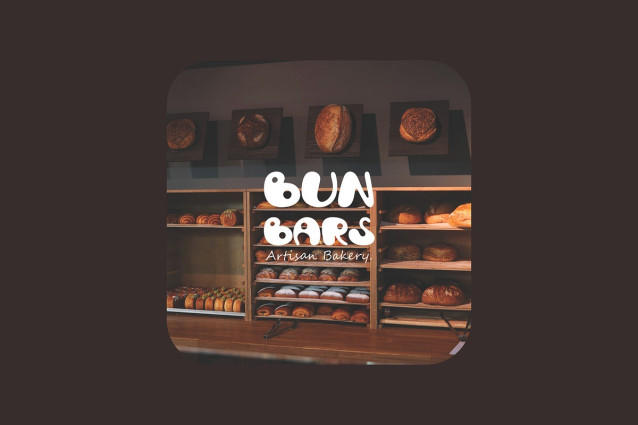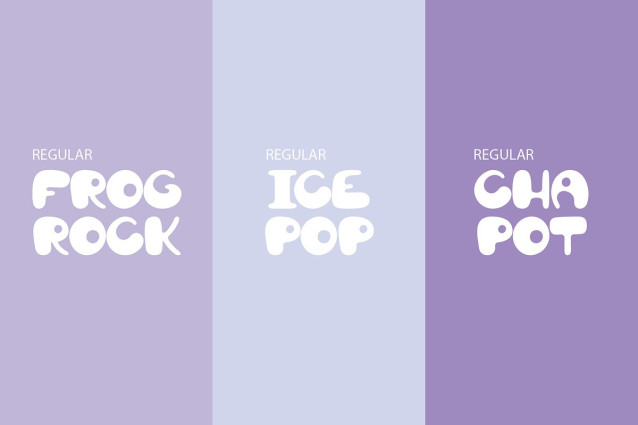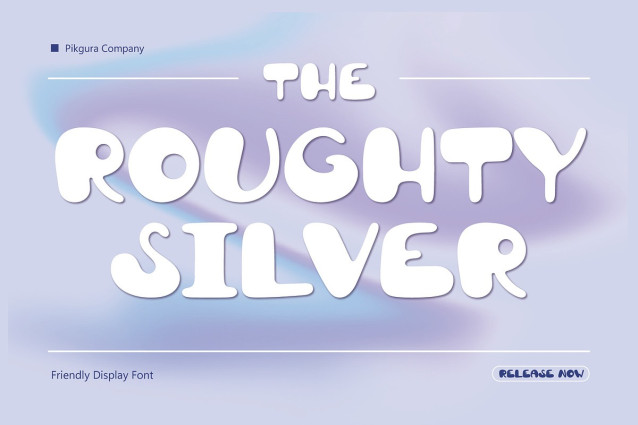
PGR Roughty Font
PGR Roughty Font is the perfect font for bakery stores, cafes, and any business that wants to convey a sense of warmth and friendliness. Its playful bubble design and hand-drawn feel create a sense of happiness and approachability, making it perfect for designs that need to put a smile on people’s faces.
Roughty is also an excellent choice for children’s books, educational materials, and any content that’s designed for kids. Its playful and whimsical design makes it perfect for engaging young minds and adding a touch of fun to learning materials.